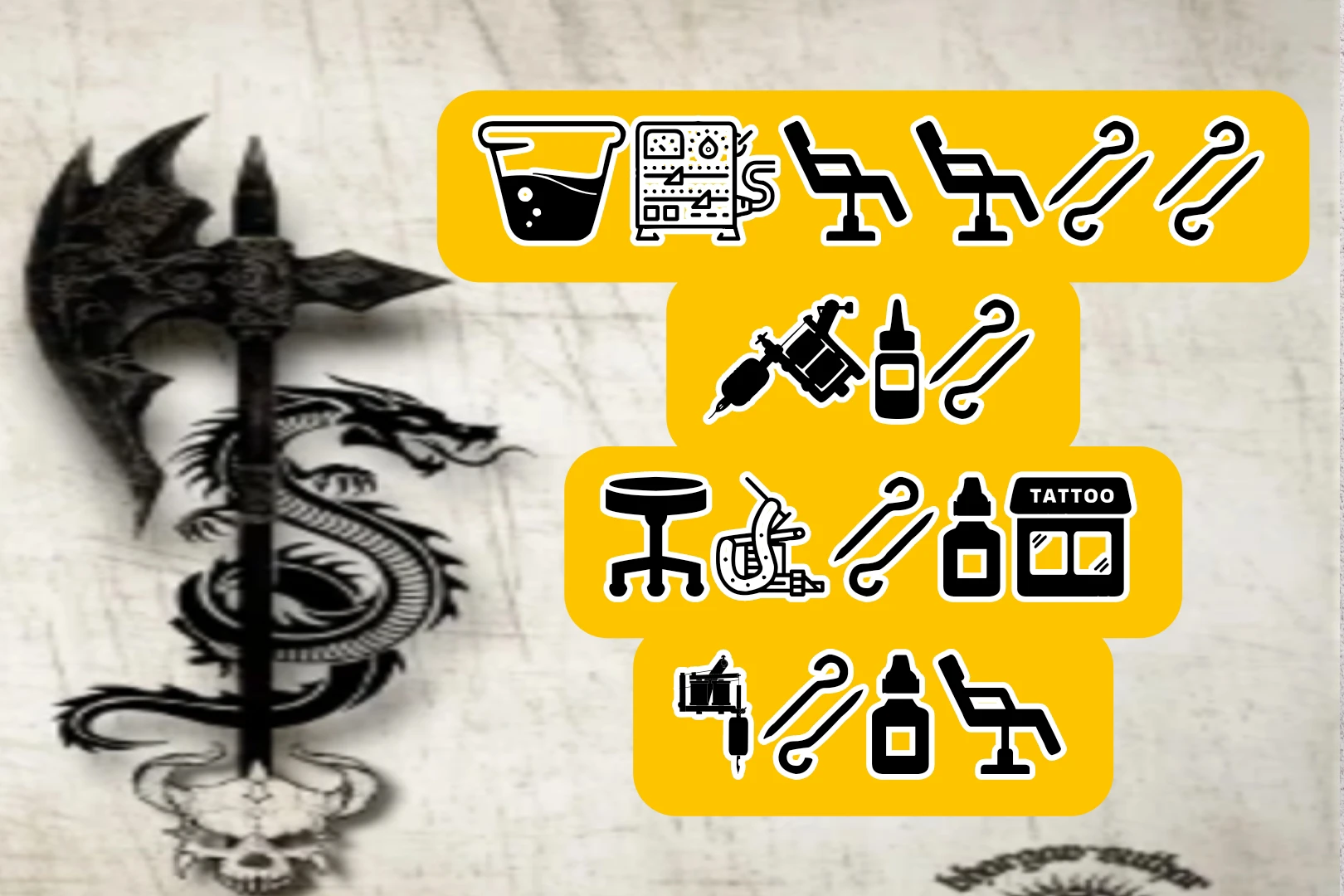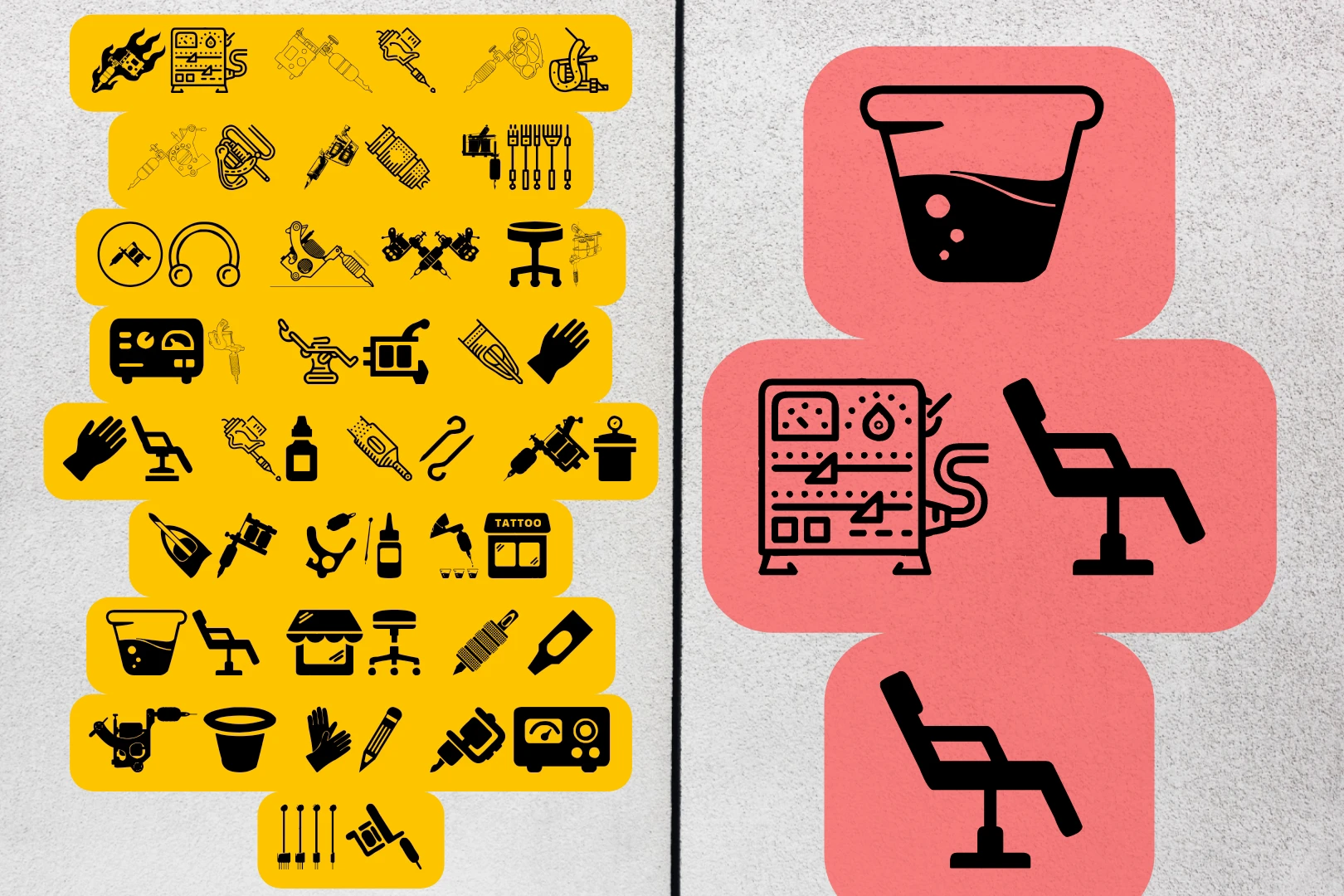
Woodcutter Manero designed the Tattoo Pro Icons font. It is a unique and eye-catching typeface perfect for any design project.
What is the Tattoo Pro Icons Font?
It is a specialized typeface featuring a variety of tattoo-inspired icons and symbols, perfect for adding a unique and edgy aesthetic to your designs.